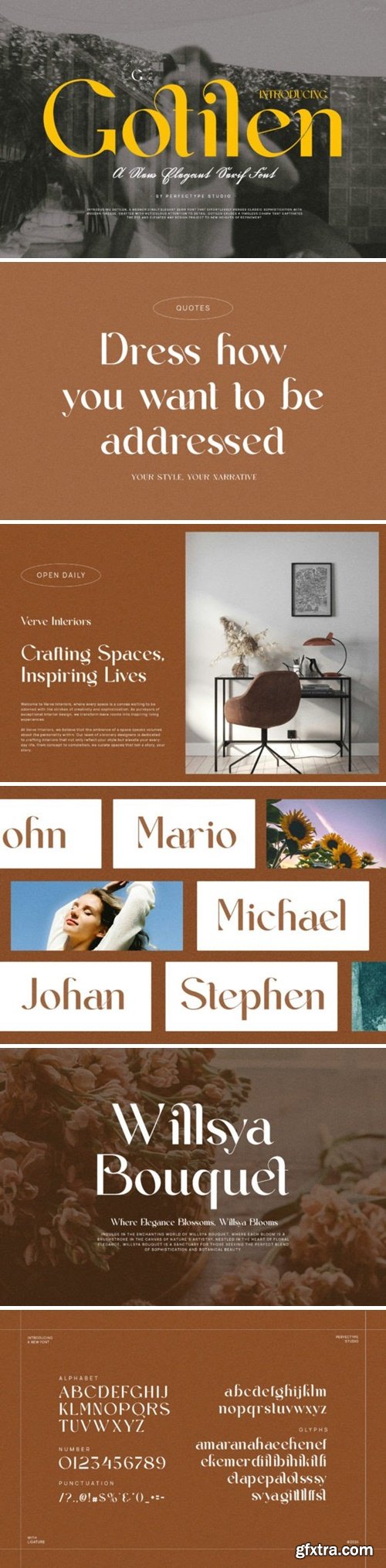
CM - Gotilen Ligature Serif Font 92434646
Gotilen is a modern, stylish, and elegant display font that blends sophistication with contemporary flair. With clean lines, balanced proportions, and subtle details, this typeface adds a touch of refinement to any design project, from editorial layouts and branding to luxury packaging and invitations.